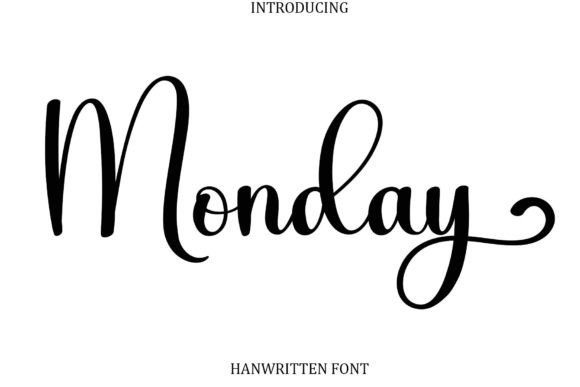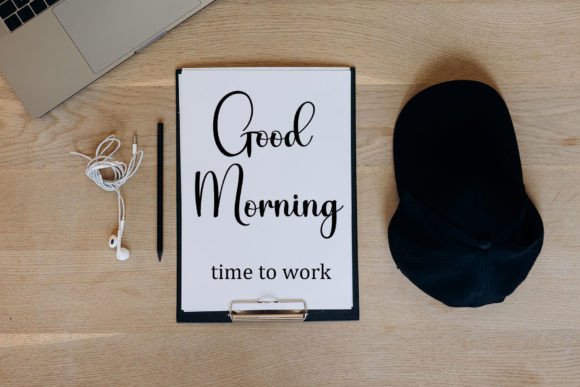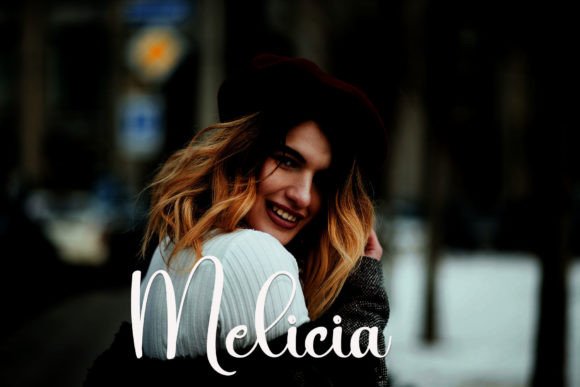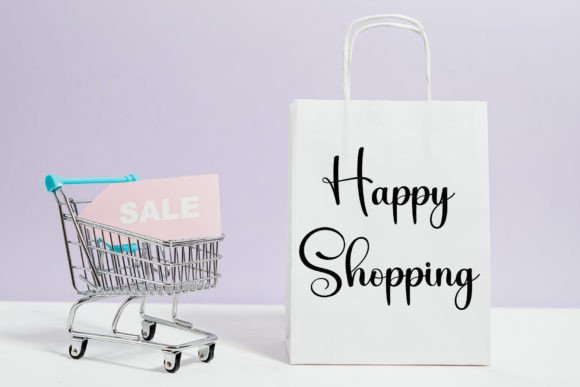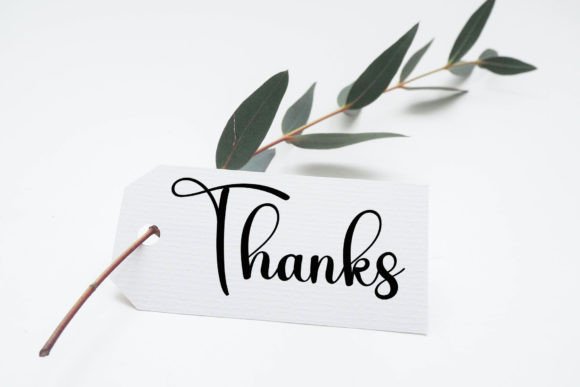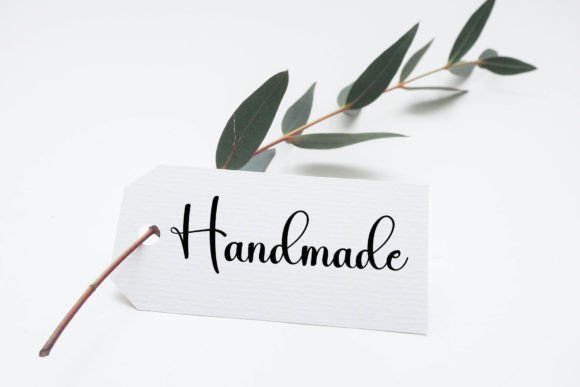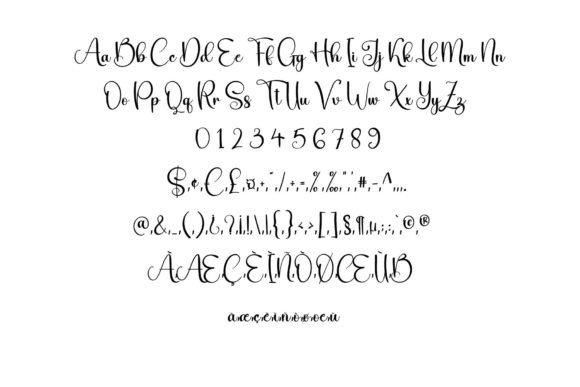
Monday Font
About Monday Font
Introducing Monday, a sweet and beautiful handwritten font that brings a touch of luxury to your design projects. With characters that dance along the baseline, this font is not just a typeface; it’s a visual experience that adds a spark of elegance to anything you create.
Monday’s charm lies in its sweet and beautiful handwritten style. The characters, gracefully moving along the baseline, create a unique and luxurious visual appeal. This font is designed to elevate your designs, infusing them with a sense of sophistication and refinement.
Whether you’re working on branding materials, product packaging, invitations, or any creative endeavor, Monday adds a touch of luxury that stands out. The dancing characters contribute to the font’s dynamic and engaging presence, making it a delightful choice for a variety of applications.
The uniqueness of Monday shines through when used in designs that seek a luxurious spark. It transforms the ordinary into the extraordinary, turning each project into a visual masterpiece. This font is not just a tool for conveying text; it’s a design element that enhances the overall aesthetic.
Consider Monday for projects where you want to evoke a sense of opulence and style. From elegant logos to refined event invitations, this font becomes the perfect choice for those who appreciate the finer details in design. Its beauty lies in its ability to add a touch of luxury to any creative endeavor.
In summary, Monday is more than a font; it’s a visual delight that brings sweetness, beauty, and a luxurious spark to your design projects. Let the dancing characters along the baseline turn your creations into works of art that stand out with elegance and charm. Choose Monday to infuse your designs with a touch of sophistication and make a lasting impression.